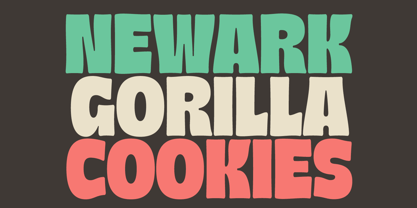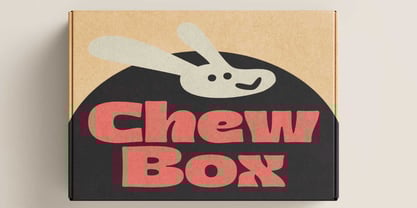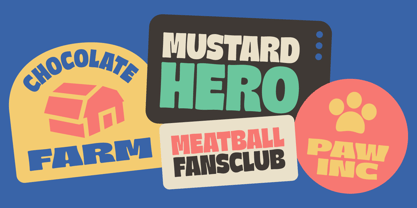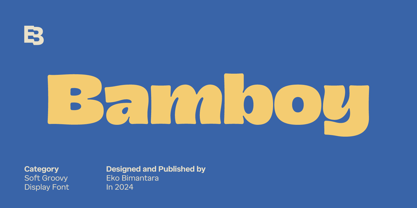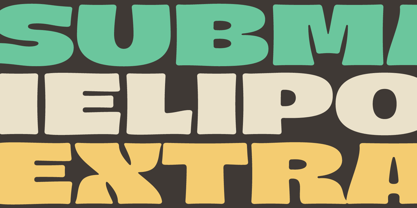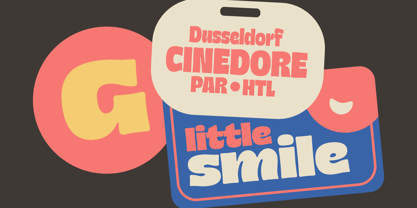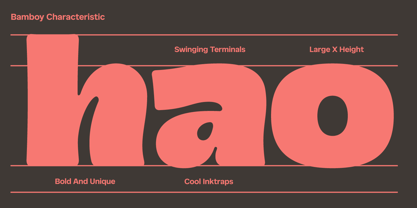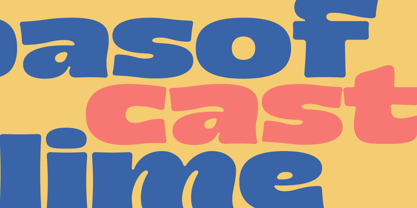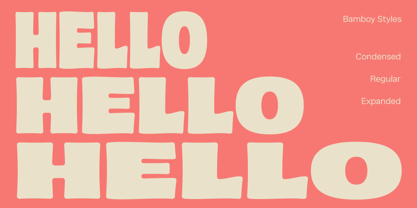
Bamboy
by Eko Bimantara
The Bamboy Font Family was designed by Eko Bimantara and published by Eko Bimantara. Bamboy contains 3 styles and family package options. More about this family
Bamboy is a soft groovy display font family characterized by its fun, retro vibe, with variable width and unique swinging terminals. Bold and eye-catching, it features cool inktraps, making it perfect for designs with a 70s or retro theme. Bamboy is ideal for branding, food packaging, product designs, and fun projects. Whether used for large displays, titles, headers, websites, or brand identities, it brings a playful yet bold touch to any creative or graphic design purpose.
Eko Bimantara is a type designer from Indonesia. Always has an intention to creating fonts that not only look great but also perform across a wide range of mediums and also across wide range of theme. The goal is to give designers the tools to make their projects that speaks a lot with various expression. Eko Bimantara’s fonts are featured in everything from corporate identities to street art posters, and have numerous ideas and concept ready to expand for fresh fonts for years further.